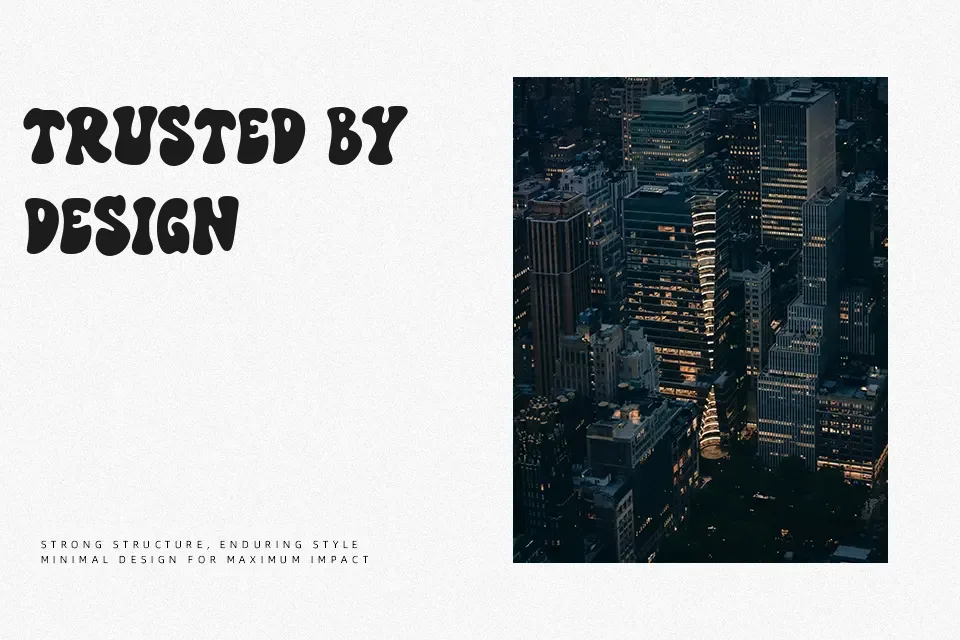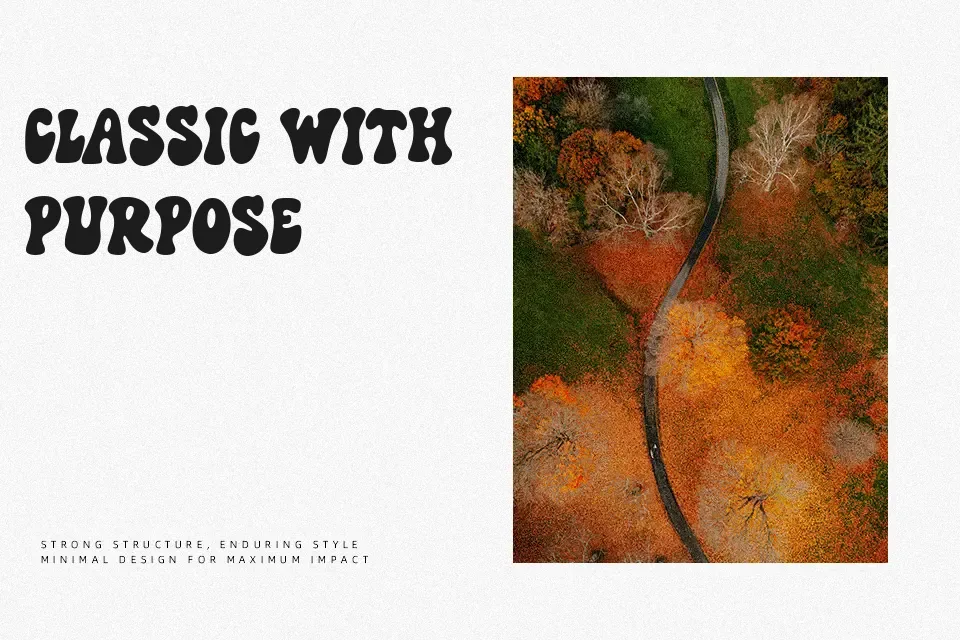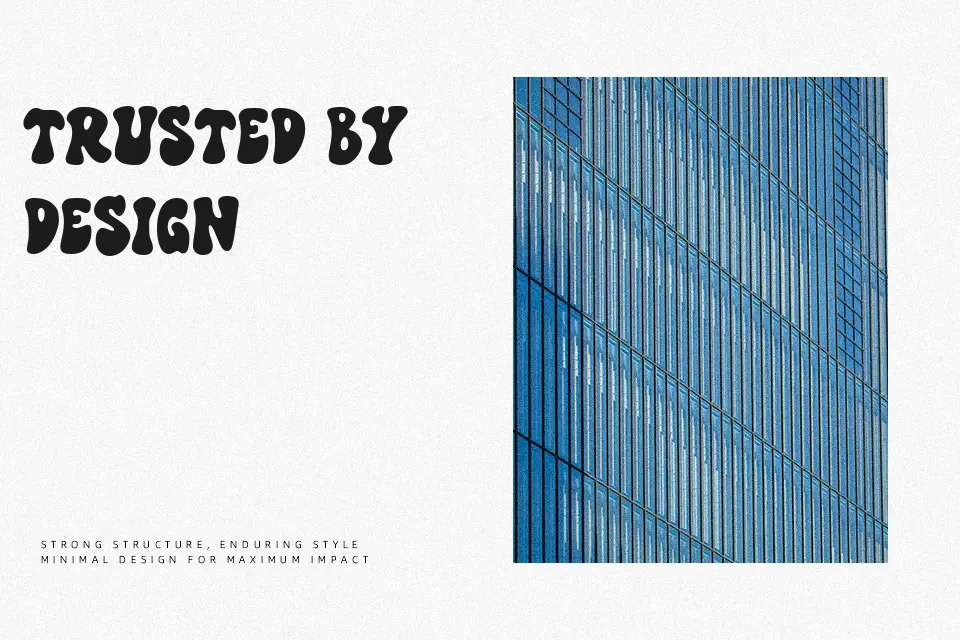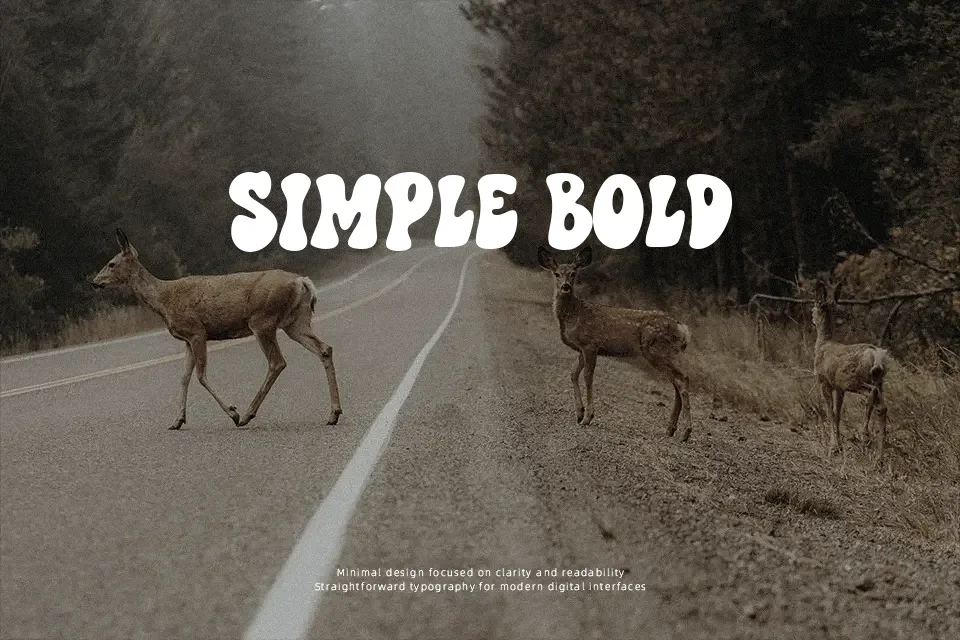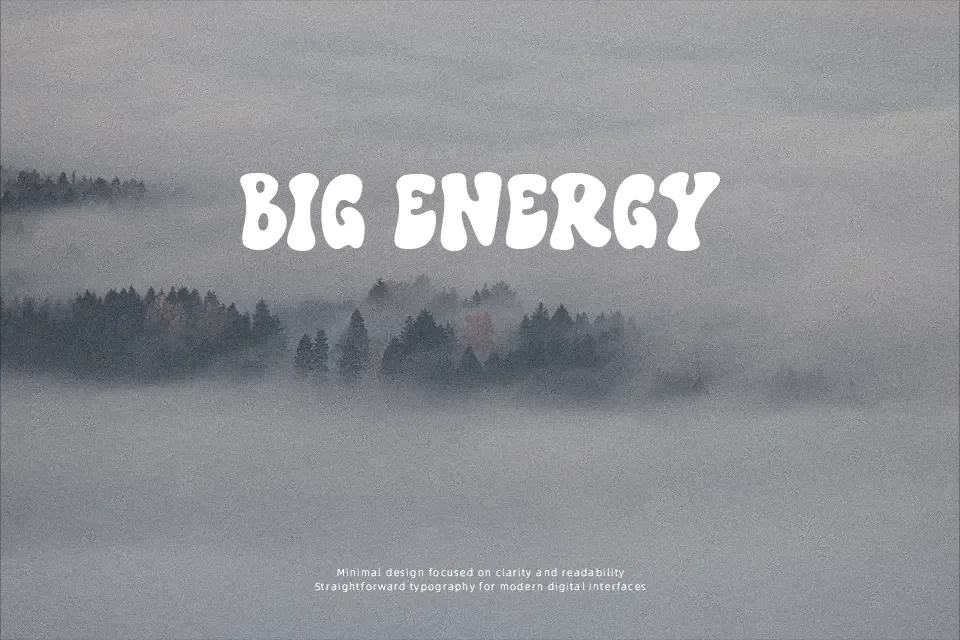
Teenage Madness Font
Teenage Madness Font commands visual attention in large display formats through bulbous, ultra-bold stroke structures and lively organic curves. The design relies on tight character spacing, low interior counter spaces, and dramatic swollen terminals that generate strong retro rhythm. Proportions stay relatively compact across standard uppercase and lowercase sets, keeping titles impactful. Heavy fluid strokes preserve legibility across short phrases, though decorative thickness becomes less effective at smaller sizes. The typeface feels less suitable for extended paragraph text where reduced counter spaces hinder continuous reading comfort.
– music festival posters
– apparel graphics
– retro merchandise branding
– beverage packaging labels
– continuous paragraph reading
– small interface labels
– corporate legal documents
– dense editorial layouts